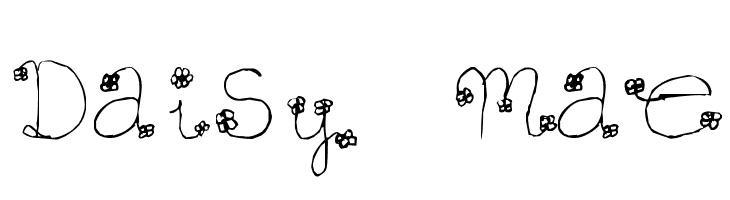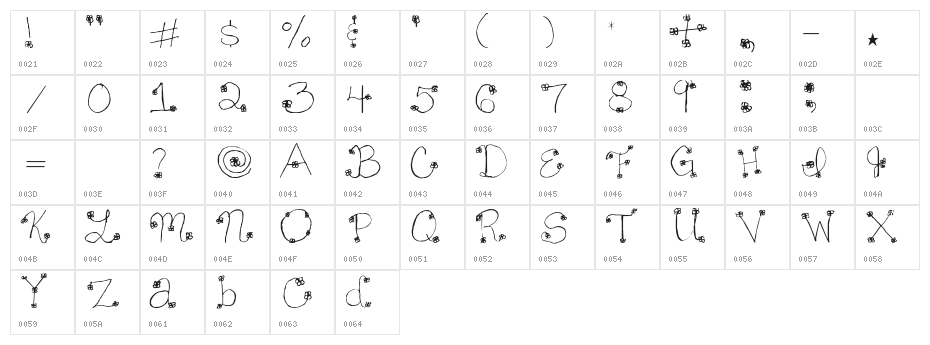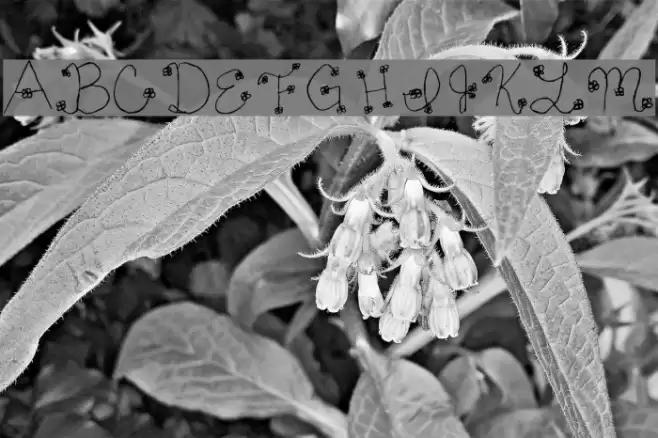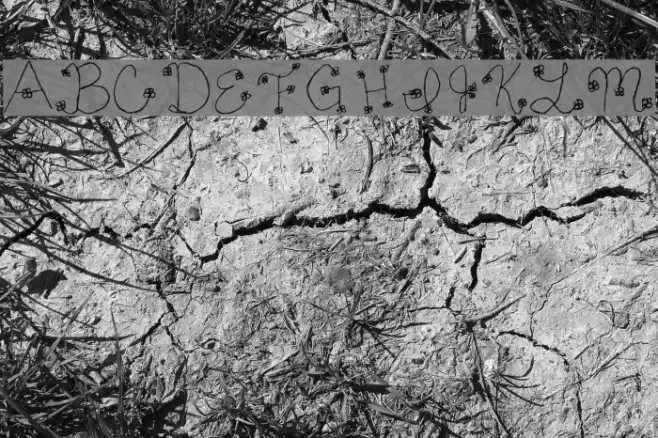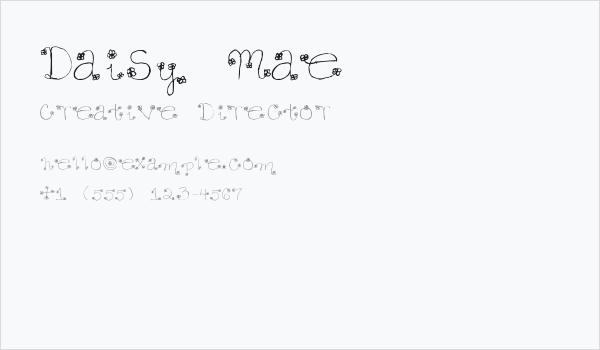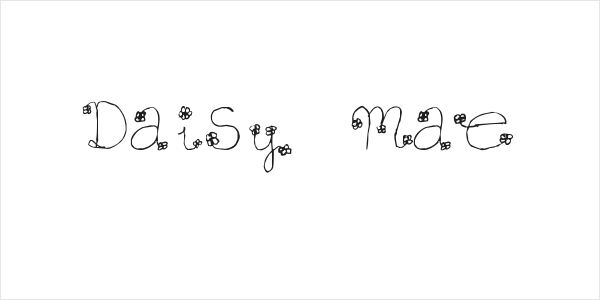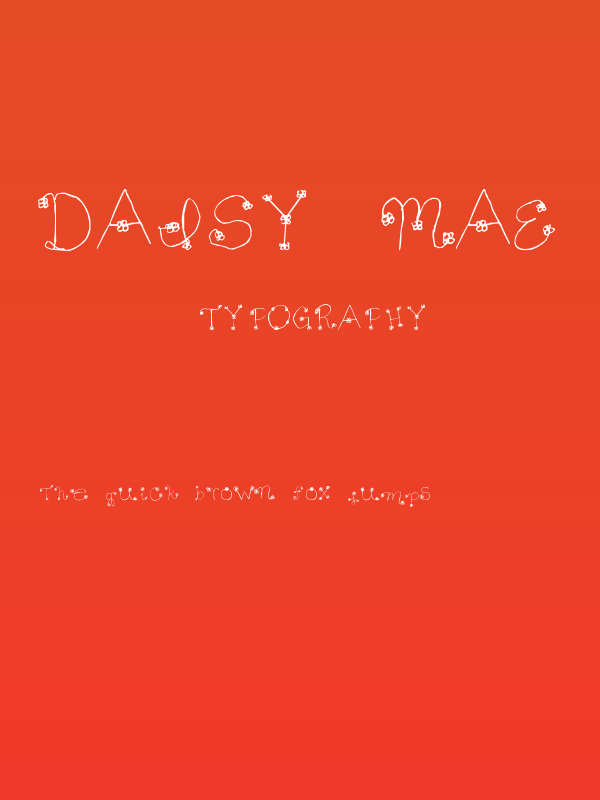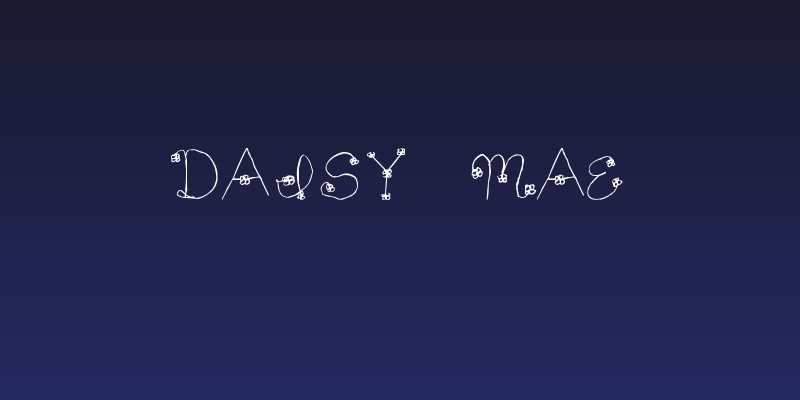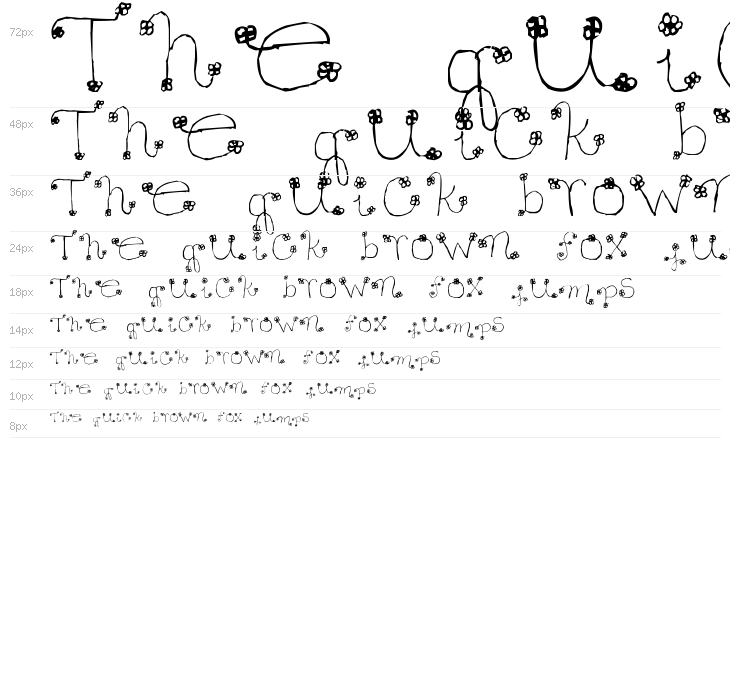
Daisy Mae Font
Daisy Mae Description
This whimsical and playful font features letters adorned with small daisy-like flowers, giving it a charming and decorative appearance. The characters are crafted with a hand-drawn style, where each letter is intertwined with floral elements, creating a unique and artistic look. The uppercase and lowercase letters maintain a consistent theme, with the flowers adding a touch of nature-inspired elegance. The numbers and special characters also follow this floral motif, ensuring a cohesive design throughout. This font is perfect for projects that require a touch of creativity and a playful aesthetic.